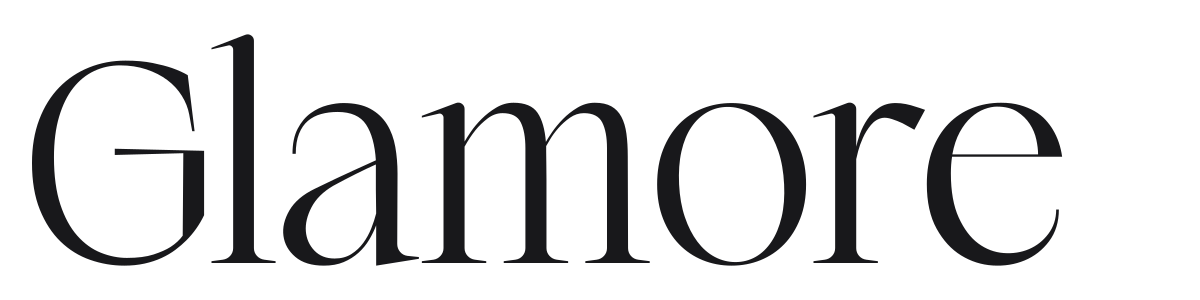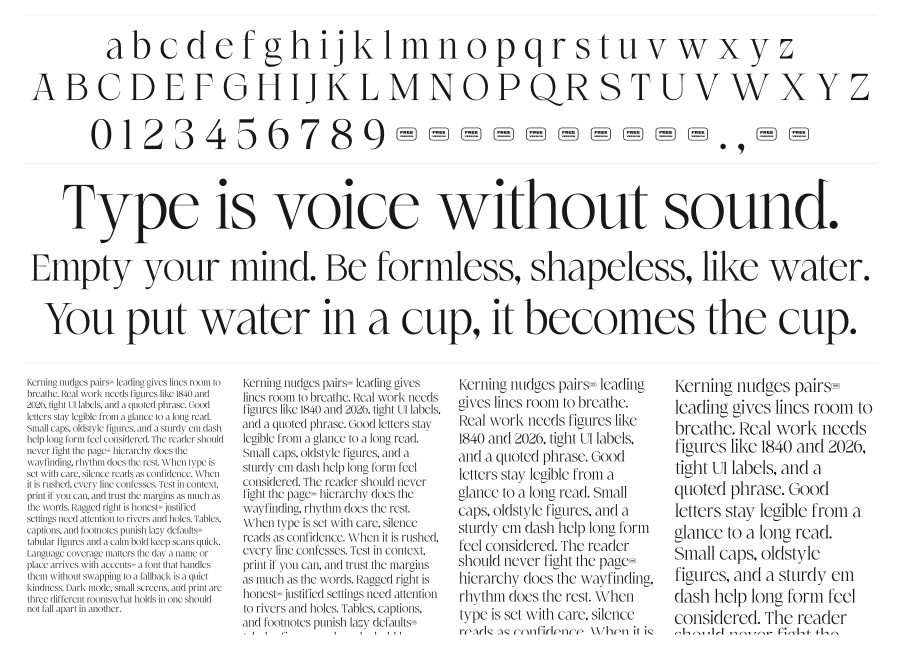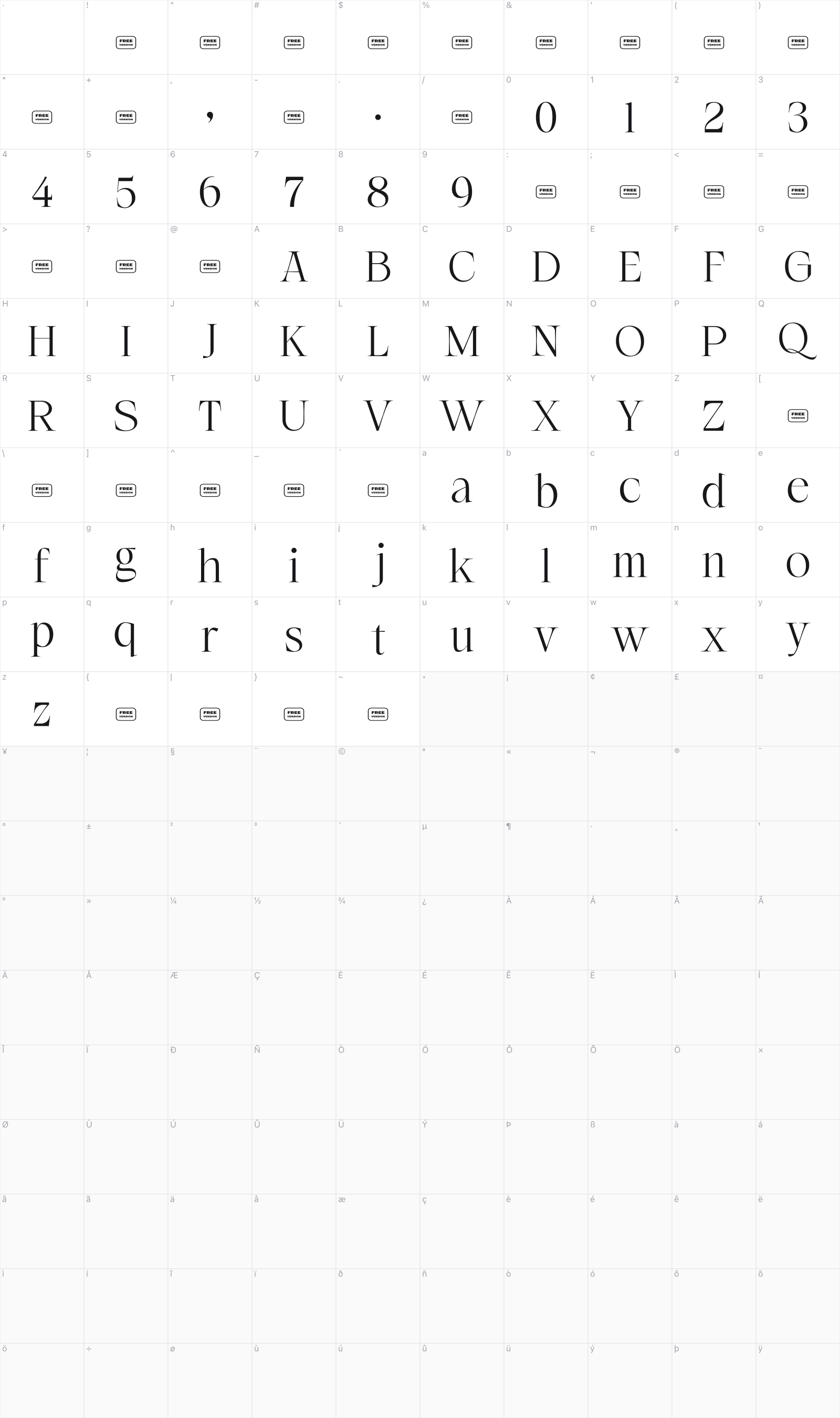
Glamore
Glamore is a high-contrast modern serif drawn in the Didone tradition, with dramatic thin hairlines set against strong vertical stems. The sharp, unbracketed serifs and generous spacing give it a restrained, editorial elegance. It sits comfortably in fashion branding, beauty packaging, and any project that calls for quiet sophistication.